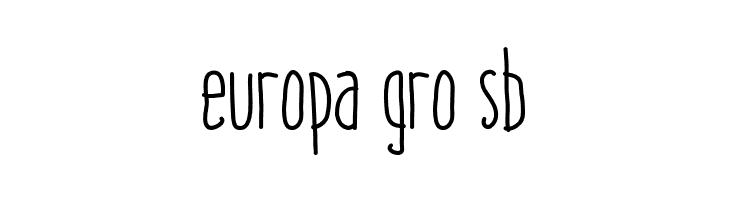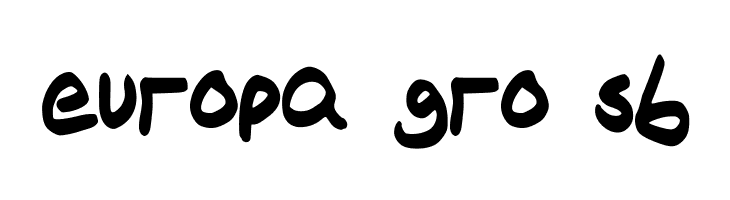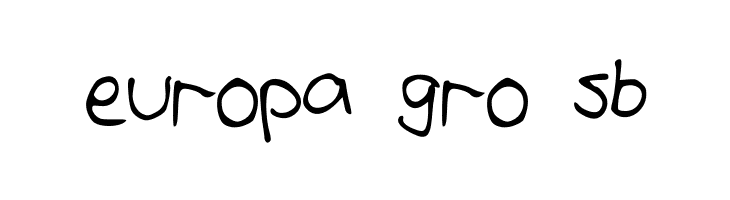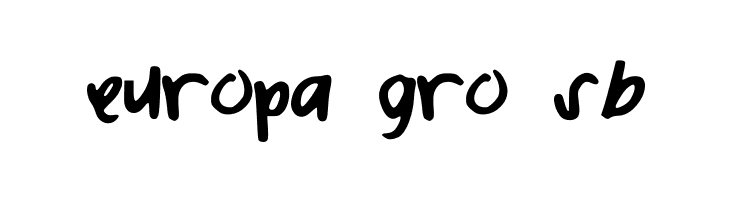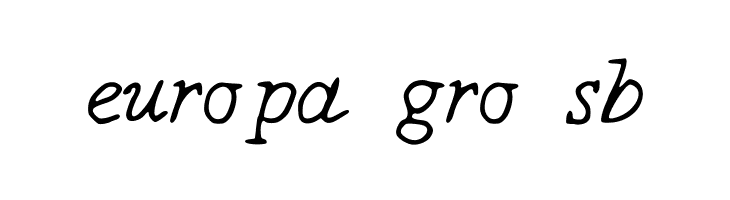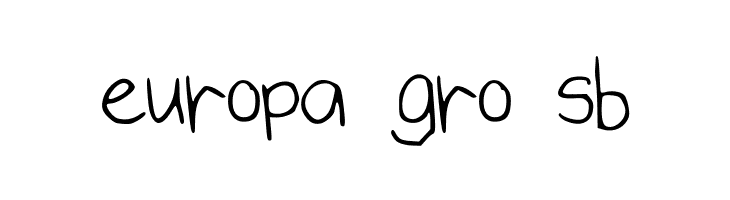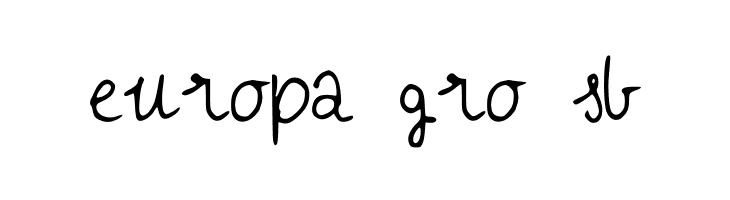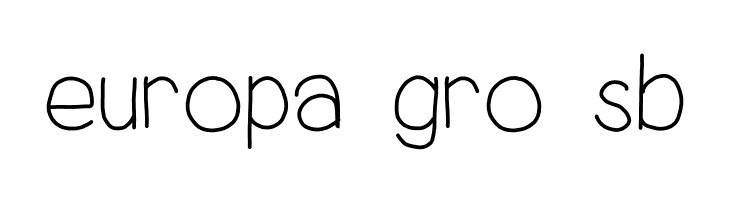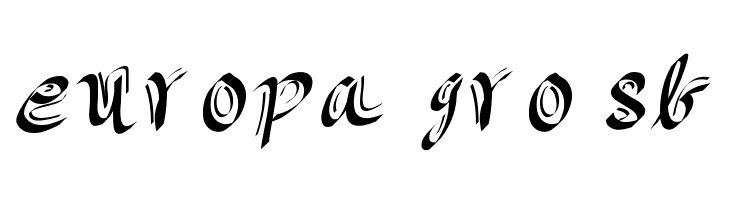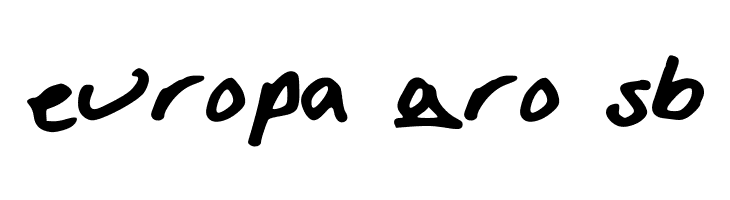
An elegant, whimsical script font with decorative loops and swirls.
A bold serif font with strong strokes and a classic, authoritative style.
A medium weight, italic serif font with a classic and elegant style.
A classic serif font with bold strokes and elegant serifs, perfect for headlines.
A modern serif font with elegant italic styling and medium weight.
A playful, handwritten font with irregular strokes and a casual style.
A bold, pixelated font with a retro digital style.
A pixelated, dot-matrix style font with abstract, digital forms.
A dripping, liquid-like font ideal for dramatic and eerie designs.
A bold, pixelated font with a retro, video game-inspired style.
An elegant, italic font with medium weight and classic calligraphic style.
A playful, hand-drawn font with tall, narrow letters and a uniform stroke width.
A playful, handwritten-style font with a smooth, italicized appearance.
A playful, narrow font with consistent stroke width and modern appeal.
A playful, casual handwritten font with smooth, flowing letterforms.
A playful, hand-drawn font with a sketch-like, artistic appearance.
A casual, handwritten font with a playful and informal style.
A playful, hand-drawn outline font with bold accents.
An artistic and decorative font with abstract, symbol-like characters.
A cursive, handwritten font with fluid, connected strokes.
A classic, elegant handwritten font with flowing cursive strokes.
A bold, playful handwritten font with rounded, organic shapes.
A playful, handwritten-style font with flowing, cursive-like strokes.
A playful, handwritten font with a casual and whimsical style.